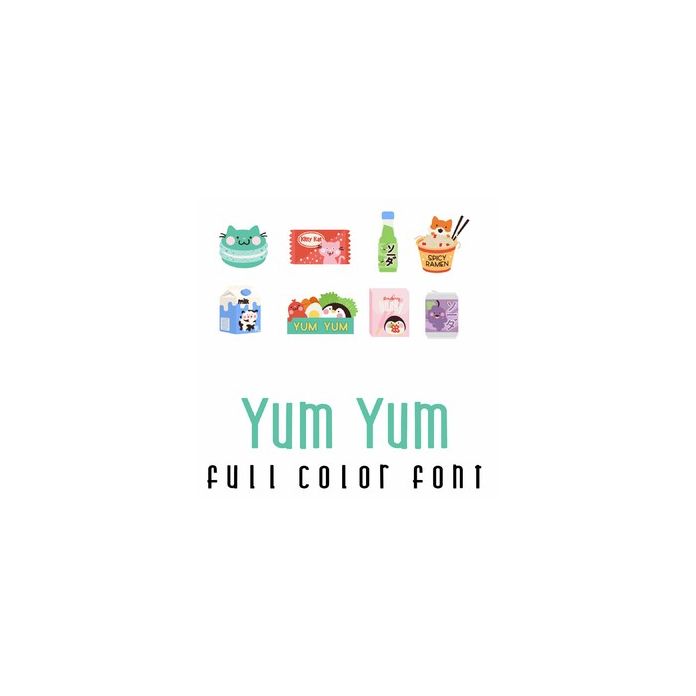
This adorable full-color doodlebat font features 26 kawaii-style Japanese treats. Perfect for cards, crafts, gifts, decor, scrapbook pages, planner stickers, and more!